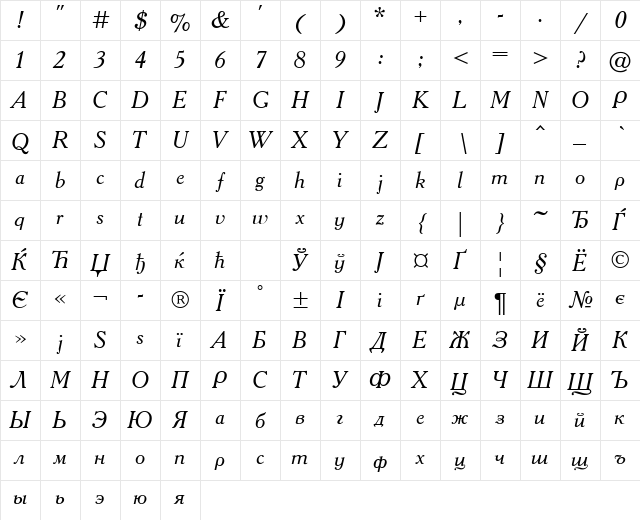
AcademyACTT Italic
Design Context for AcademyACTT
AcademyACTT is a composed and adaptable typeface that performs quietly and consistently across a wide range of design contexts. The slanted form adds forward momentum and visual energy.
Pro Tip: Use AcademyACTT for emphasis, pull quotes, and subheadings where its slanted energy can add rhythm to the layout.